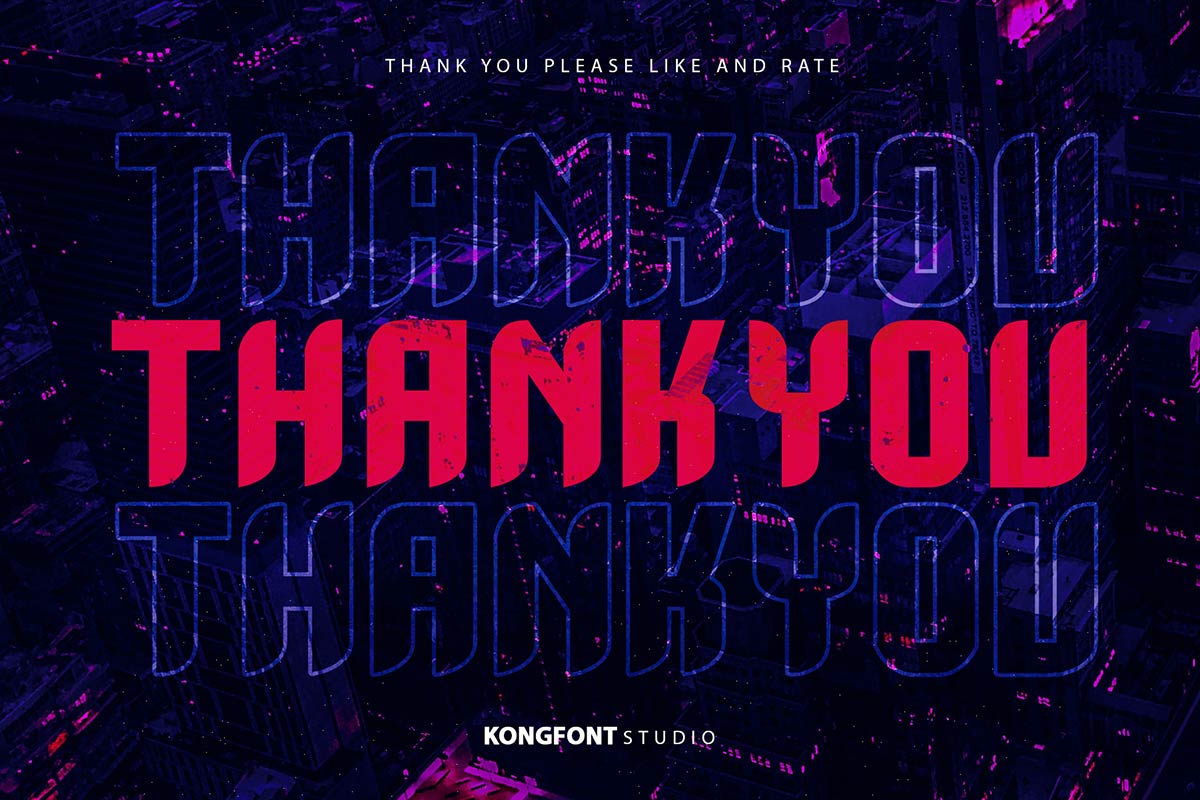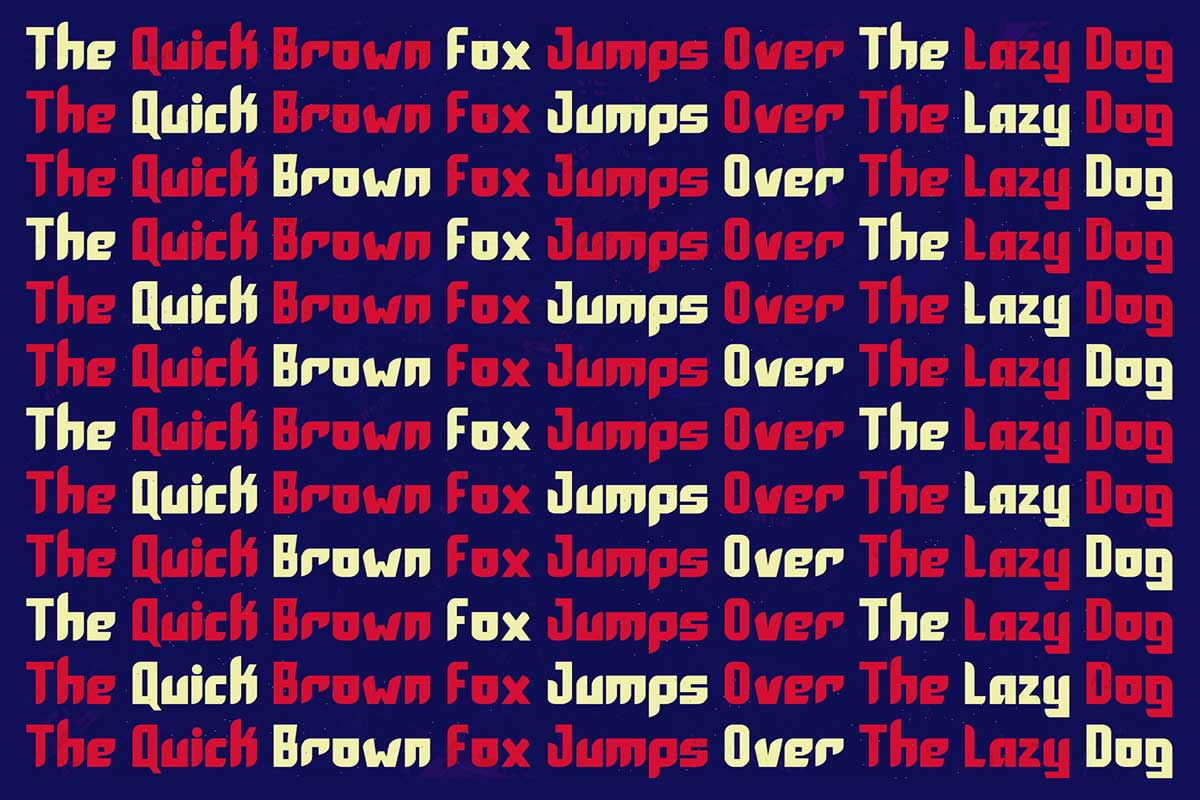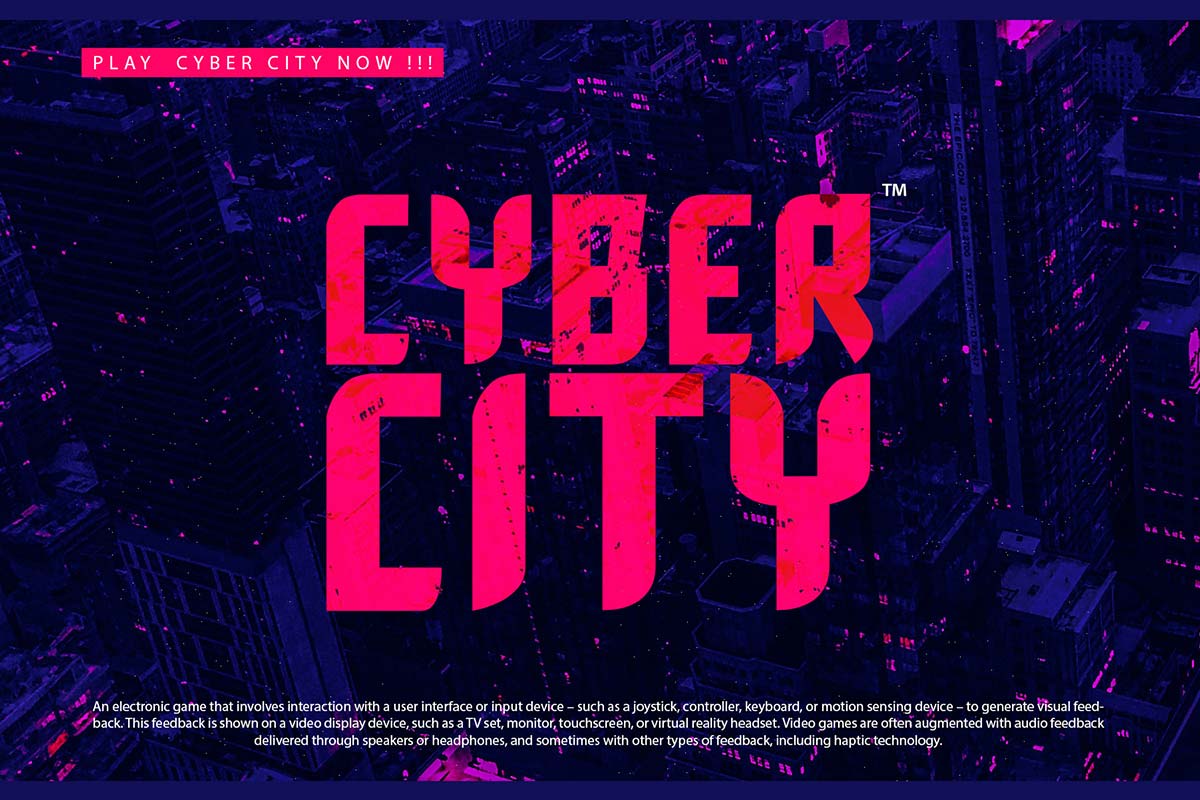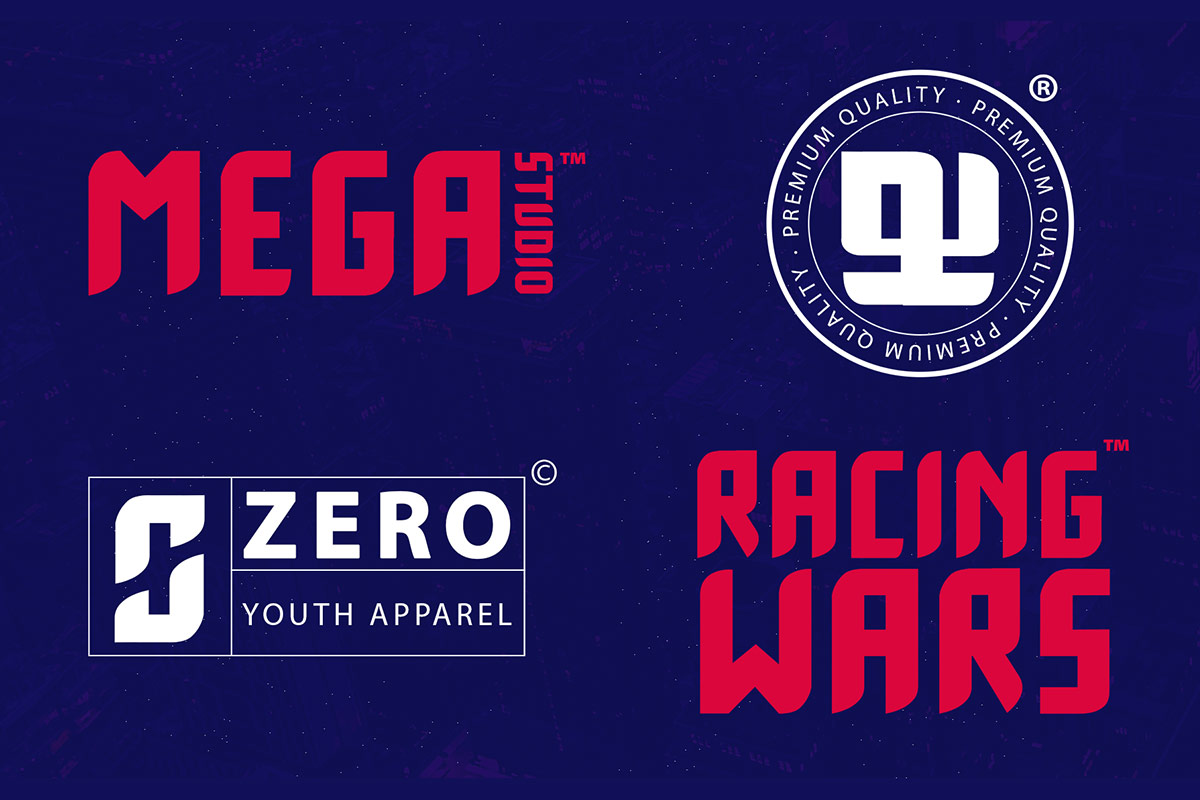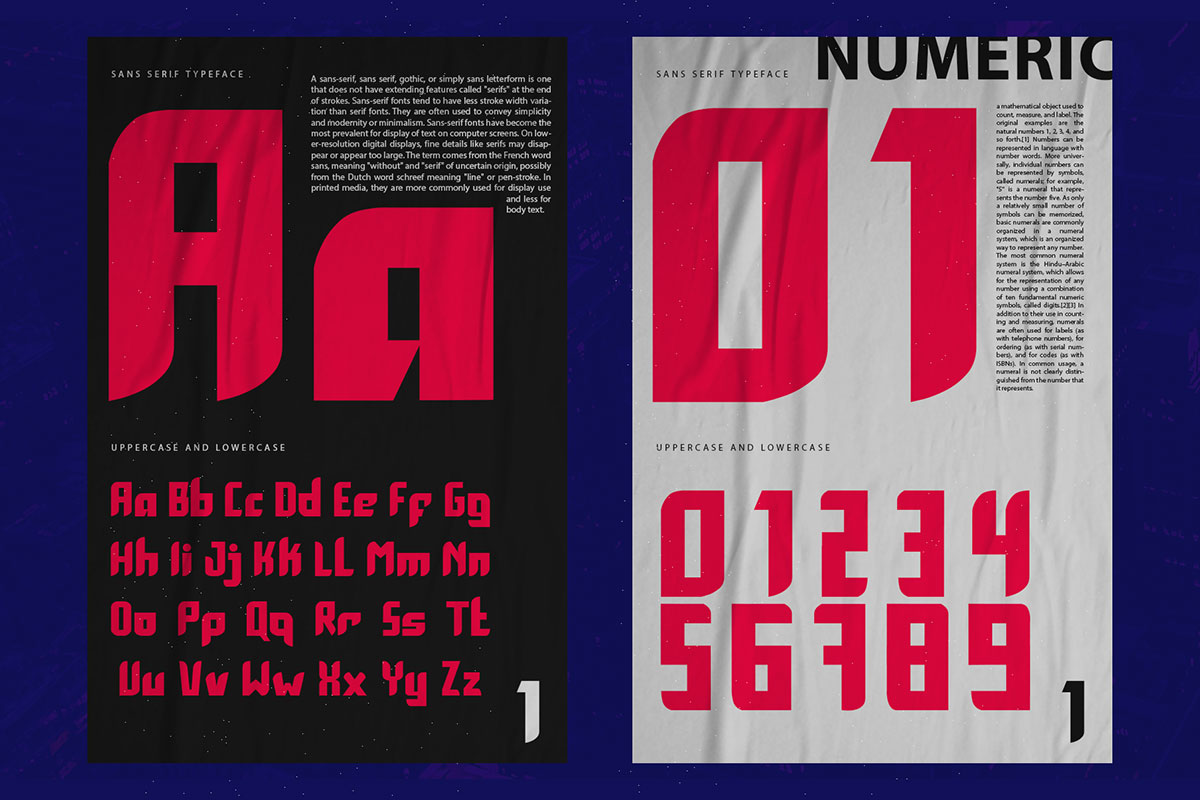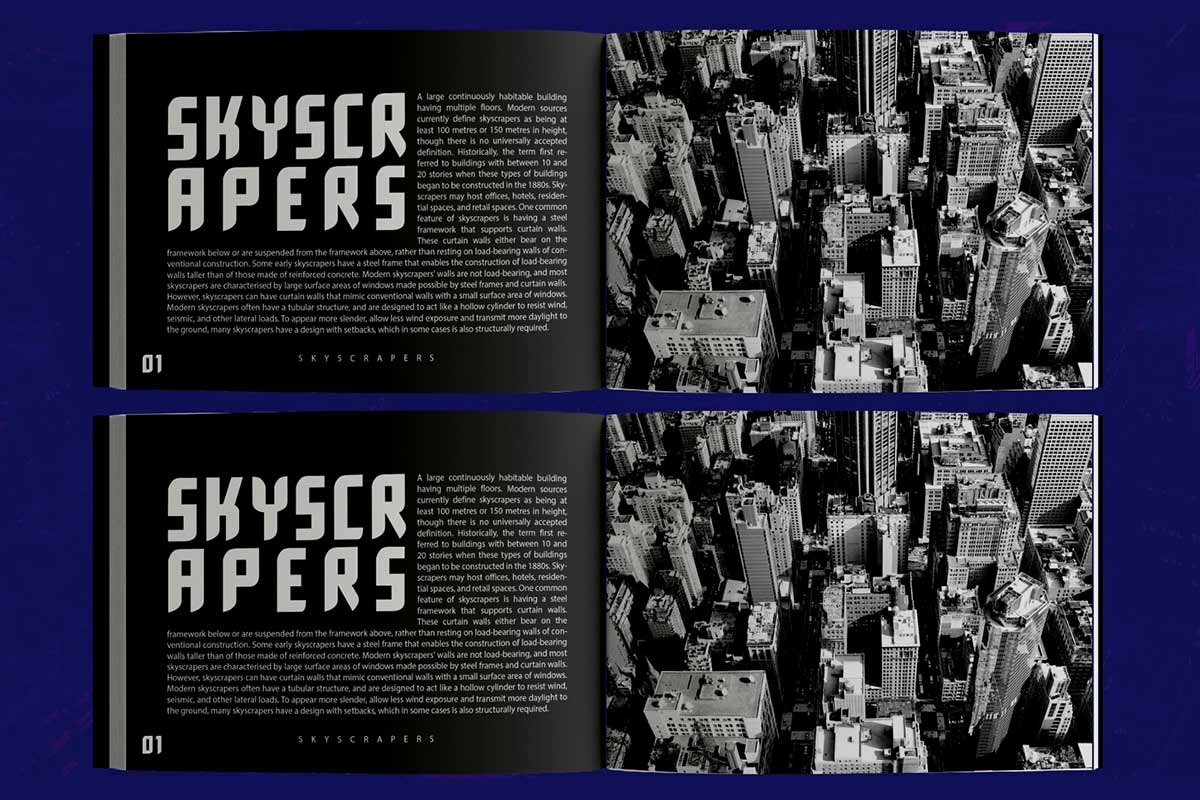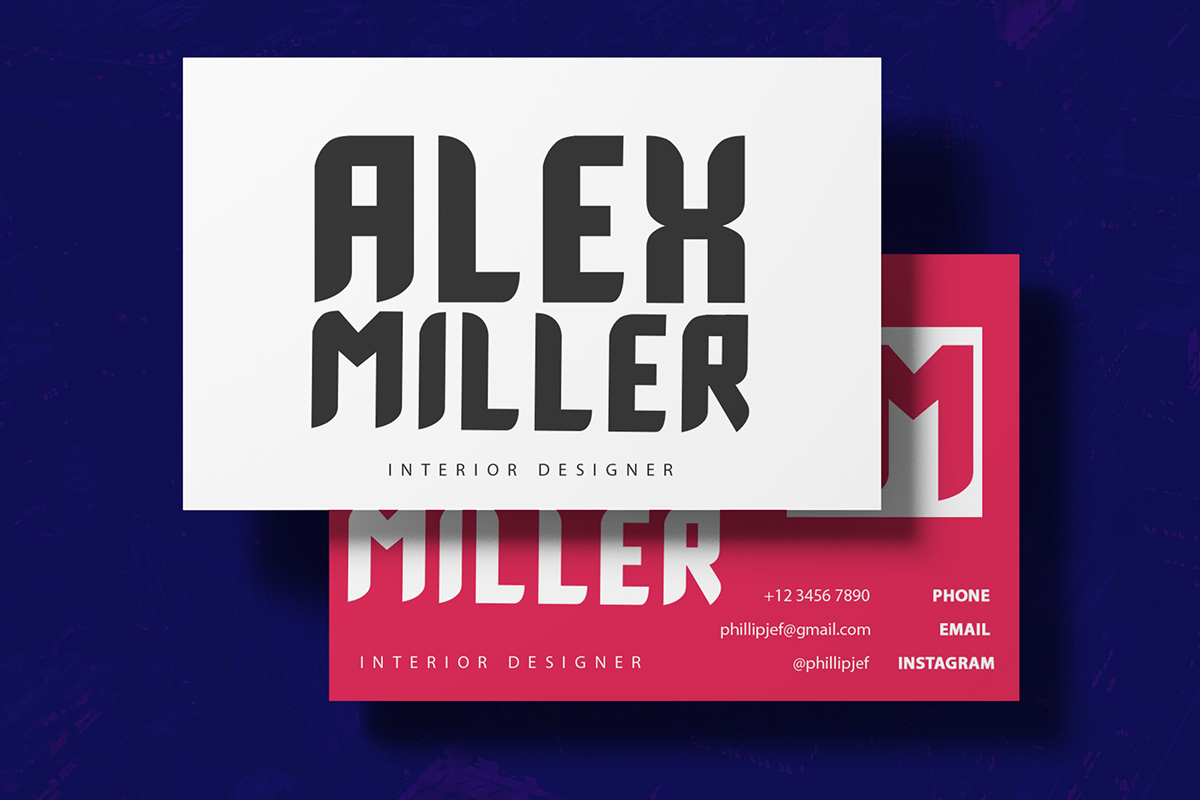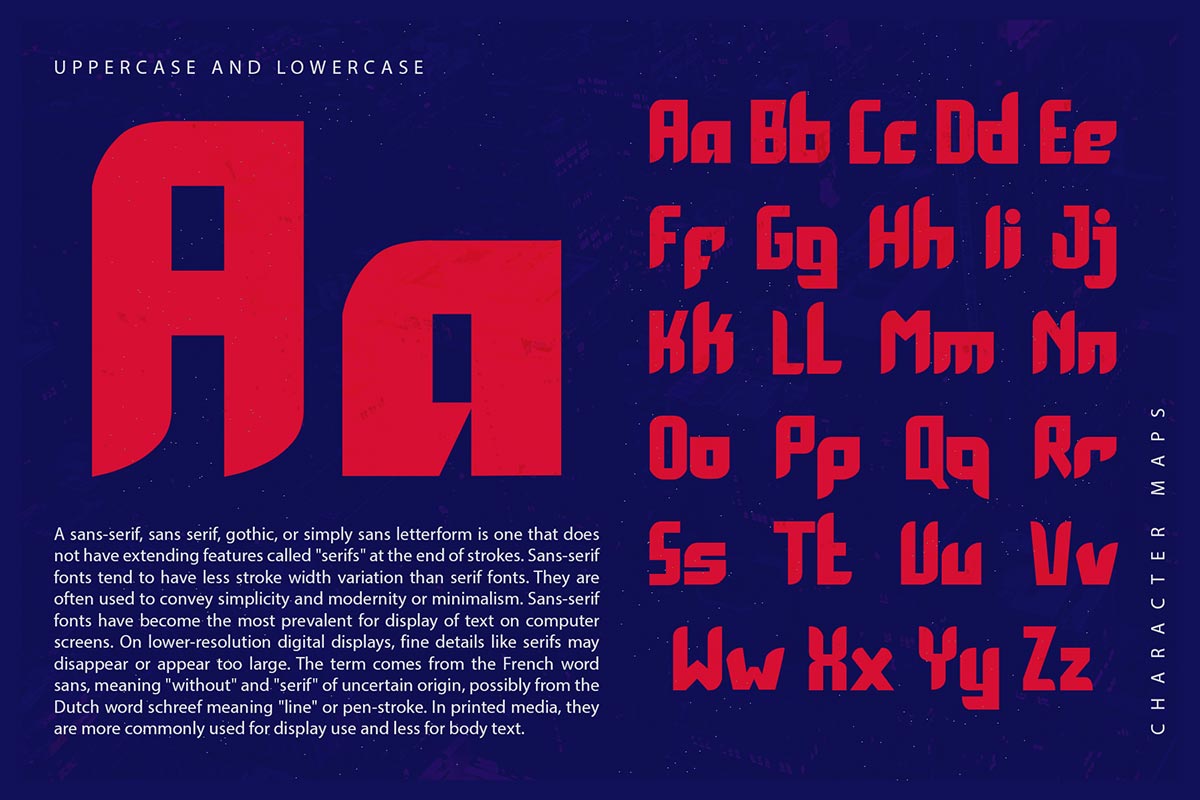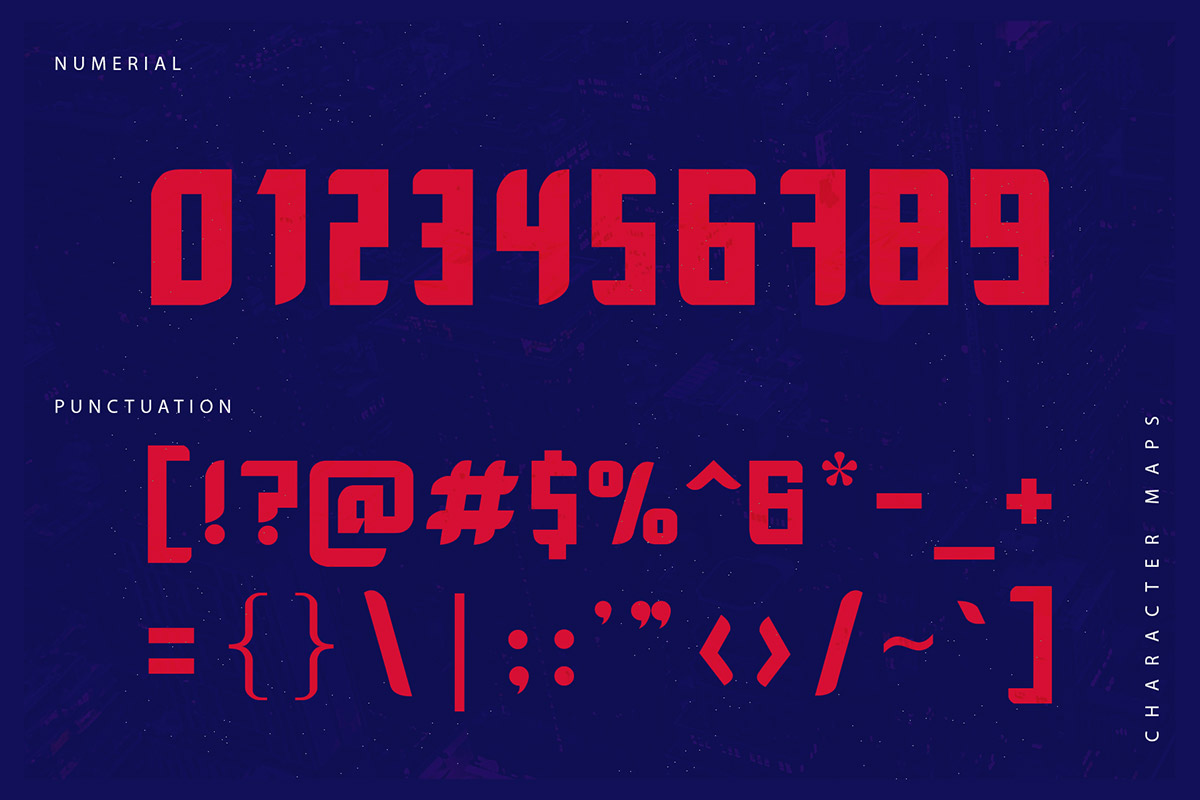
Cooldown Font Cooldown Modern Sans Serif Font is a modern font that has pointed sharp corners at the end of each letter. If you want to see the serif in this font, you must look closely. Cooldown Modern Sans Serif Font can be classified into bold and modern fonts. Cooldown Modern Sans Serif Font is a font that can be read and understood from a distance. However, this font is not good enough for writing long sentences or blog content, as well as reading books and magazines. This font is proper for use in short sentences and aims to attract attention. Cooldown Modern Sans Serif Font is the best font for signage, posters, or wall decoration for cafes, boutiques, or flower shops. Cooldown Modern Sans Serif Font is made to highlight the elegant and formal impression of every brand that chooses to use it. Cooldown Modern Sans Serif Font is suitable for product branding. It can use as brand tags, advertisements, and other marketing needs. Our display fonts collection is compatible for use as Figma fonts, Canva fonts, Freepik Fonts, and Adobe Fonts. They also work as Windows Fonts and Apple Fonts. For your social media needs, you can use and install fonts in our collection of serif fonts to use as Instagram Fonts, Facebook Fonts, and Twitter Fonts.